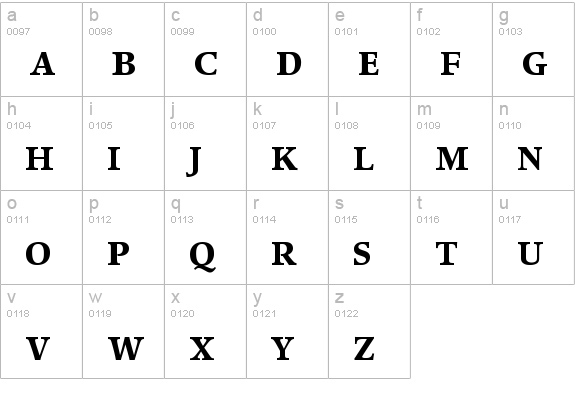
Poppl-Pontifex BE Medium with Small Caps is a balanced, medium-weight variant in the Poppl typeface family \xE2\x80\x94 well suited to sub-headlines, navigation, and balanced editorial work.
Poppl-Pontifex BE Medium with Small Caps is a versatile and elegant font that exudes sophistication and charm. With its balanced letterforms and subtle serifs, this typeface is perfect for a wide range of design projects, from branding to editorial layouts. The inclusion of small caps adds an extra touch of class and professionalism to any text. What makes Poppl-Pontifex BE Medium with Small Caps even more appealing is that it is available for free download at FontsMarket.com. This means that you can easily access this high-quality font and use it in your projects without any cost. Whether you are a designer looking to add a touch of refinement to your work or a business owner in need of a stylish font for your branding materials, Poppl-Pontifex BE Medium with Small Caps is a fantastic choice that won't break the bank. Download it today and elevate your designs with this timeless and elegant typeface.